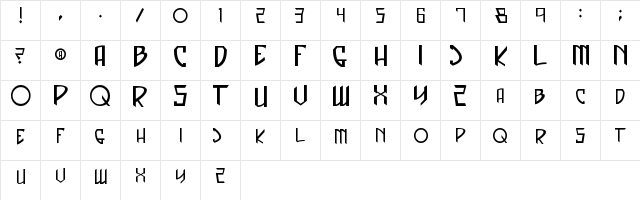
Captain Spandex Regular
Design Context for Captain Spandex Typeface
Captain Spandex is a composed and adaptable typeface that performs quietly and consistently across a wide range of design contexts.